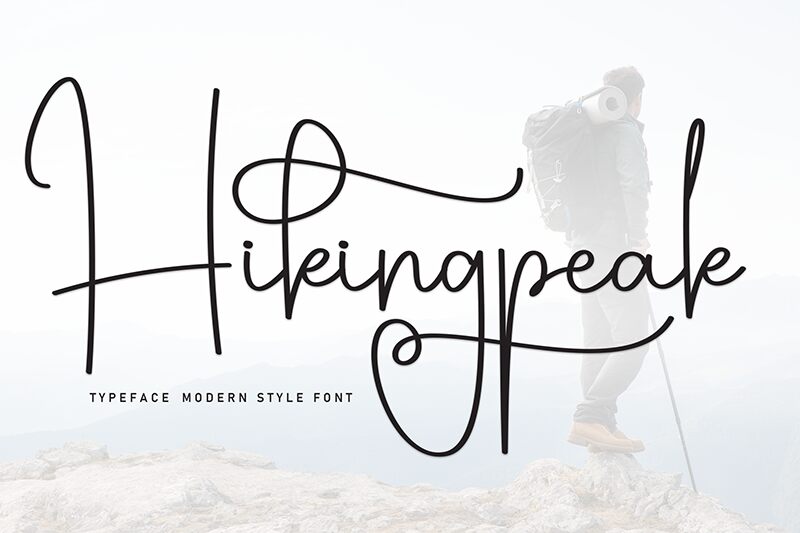
Hikingpeak
Hikingpeak font by Scratchones is a light, handwritten free font that carries an elegant and artistic impression. It features a casual script style with occasional loops for a charming, contemporary flair. This font’s approachable aesthetic stems from its comfortable spacing between the letters which result in great legibility.
A multitude of designs can benefit from this magical font: labels, books, posters, banners, advertisements, invintations to formal events (weddings), flyers for special offers and discounts as well as social media posts shown on Instagram and Twitter.